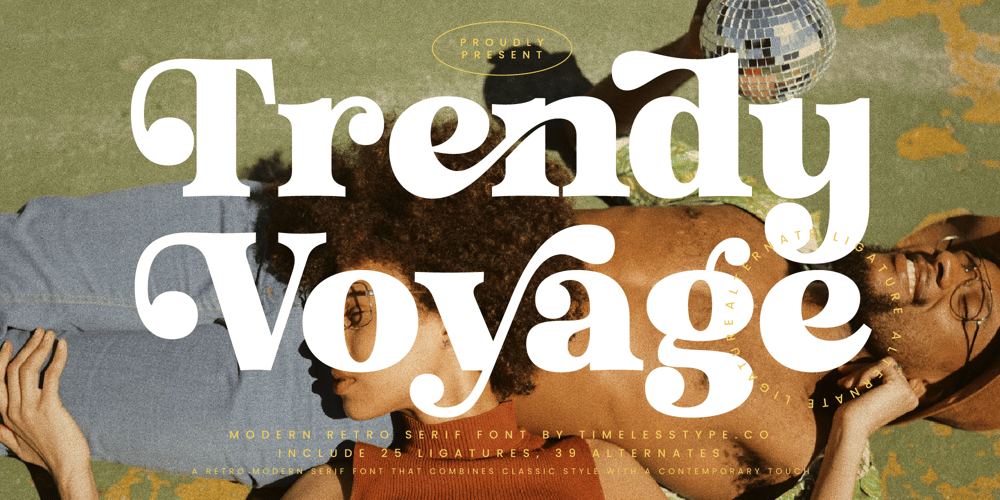
Trendy Voyage
Trendy Voyage font
Trendy Voyage Font Family was designed by Heru Utama Putra and published by Timelesstype Studio. Trendy Voyage contains 1 styles and family package options. Trendy Voyage – Modern Retro Serif , from Timelesstype , Suitable for any projects such as: logos, branding projects, homeware designs, product packaging, mugs, quotes, posters, shopping bags, t-shirts, book covers, name card, invitation cards, greeting cards, label, photography, watermark, special events, and all your other luxury and beautiful projects that need a Luxury Serif taste.